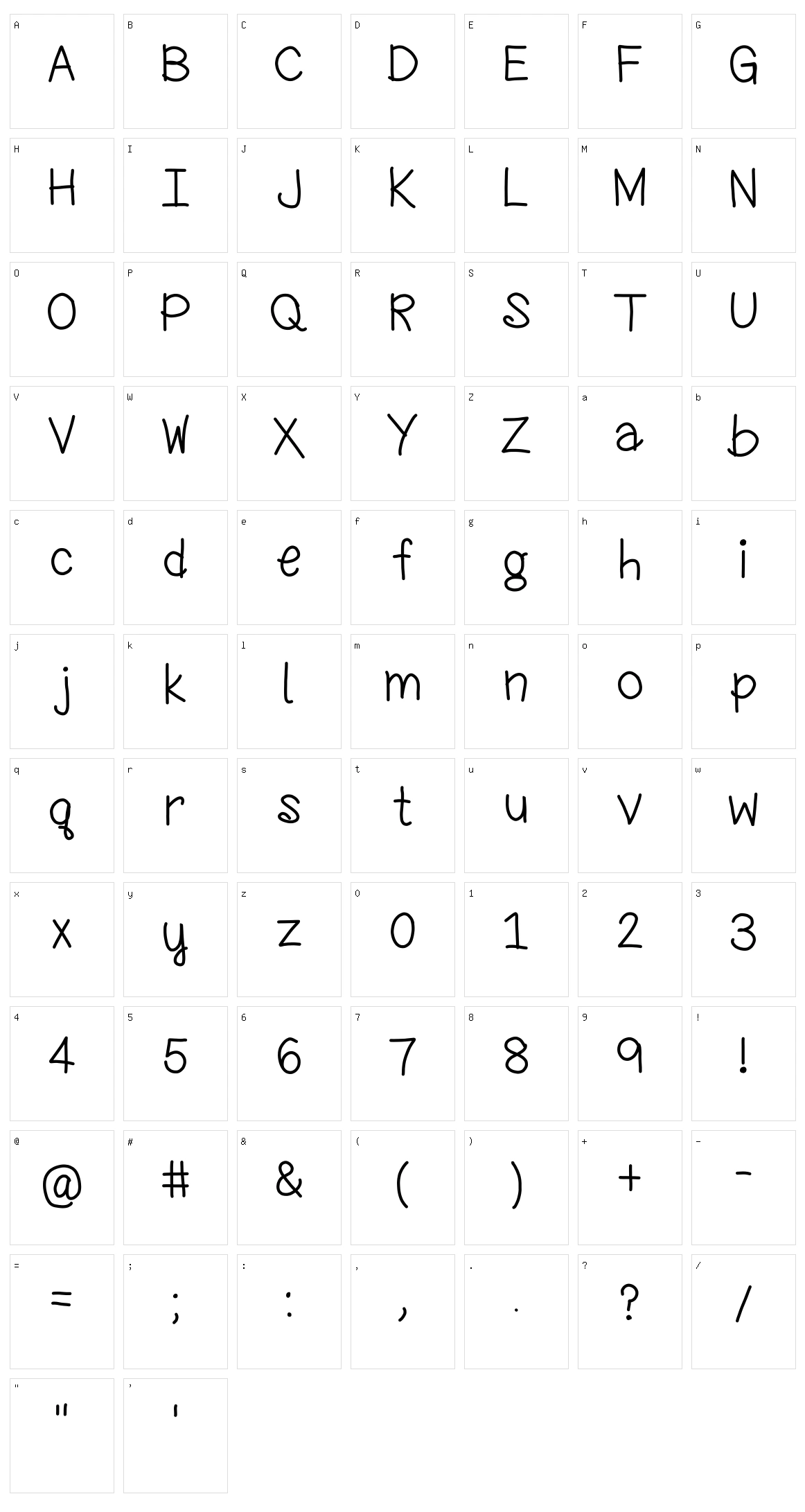
The free font Chasing the ice cream truck is carefully designed by Sabrina Schleiger, showcasing a thoughtful balance of creativity and usability and falls under the Script font style. When you download the ZIP file, it contains only 20.02 KB of font files, making it lightweight and quick to download. Please review the license details below to understand permitted usage and distribution rights. If license information is not available, we recommend using this font for personal projects only or contacting the author directly for commercial usage permissions.